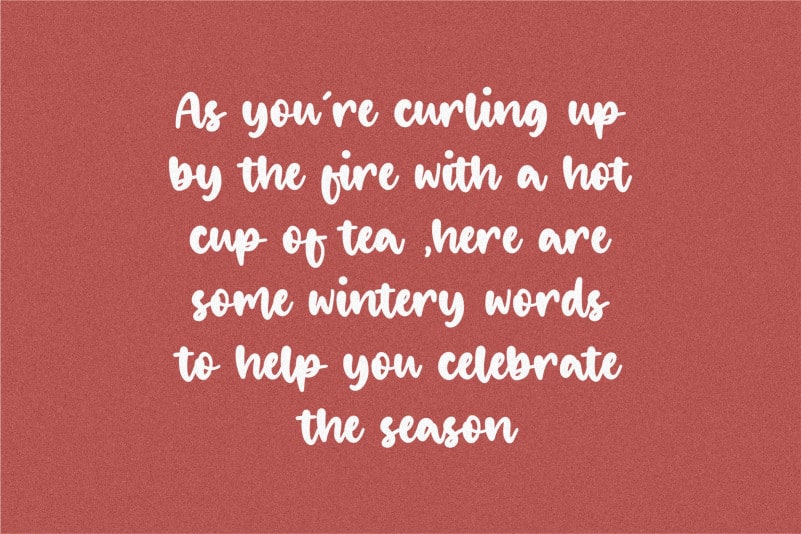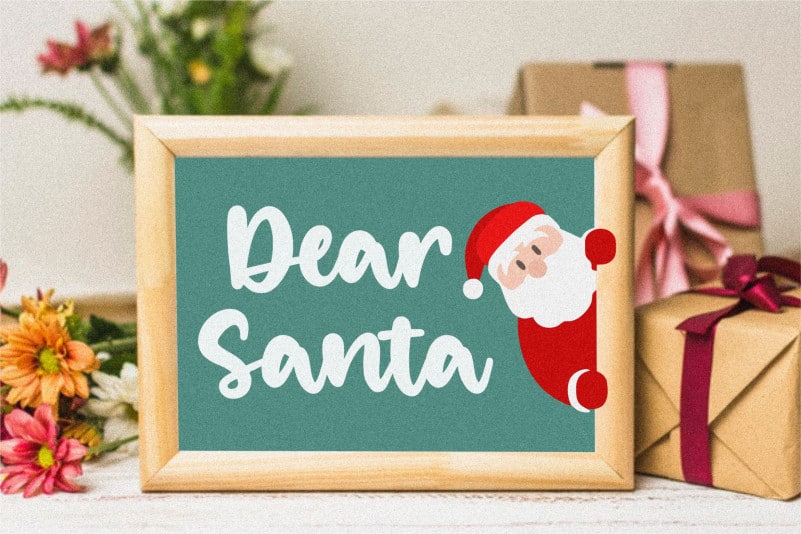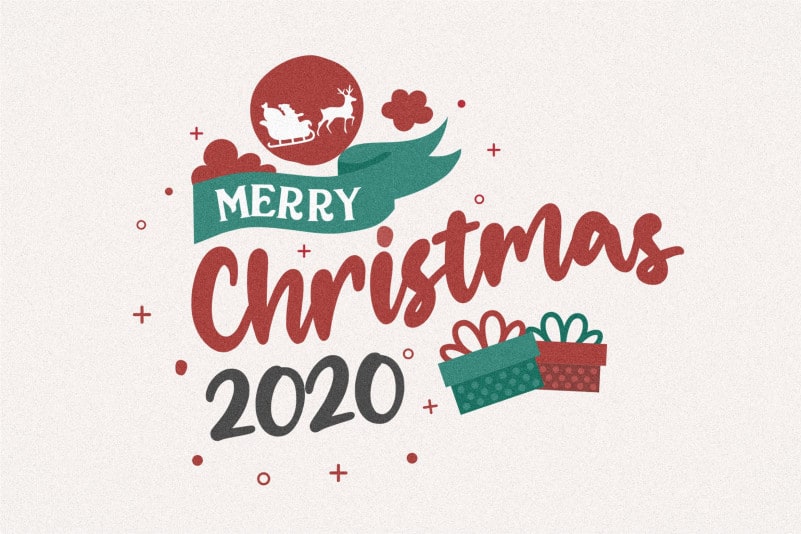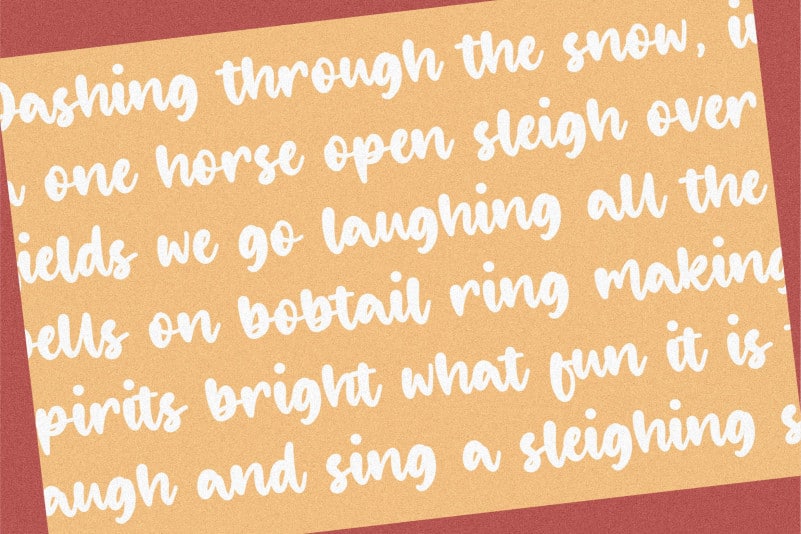
Jingle Binder Modern Handwritten Bold Font
Proudly Present, Jingle Binder Modern Handwritten Bold Font.
Jingle Binder is a Modern Handwritten Bold Font.
It is perfect for product packaging, branding project, megazine, social media, wedding, or just used to express words above the background.